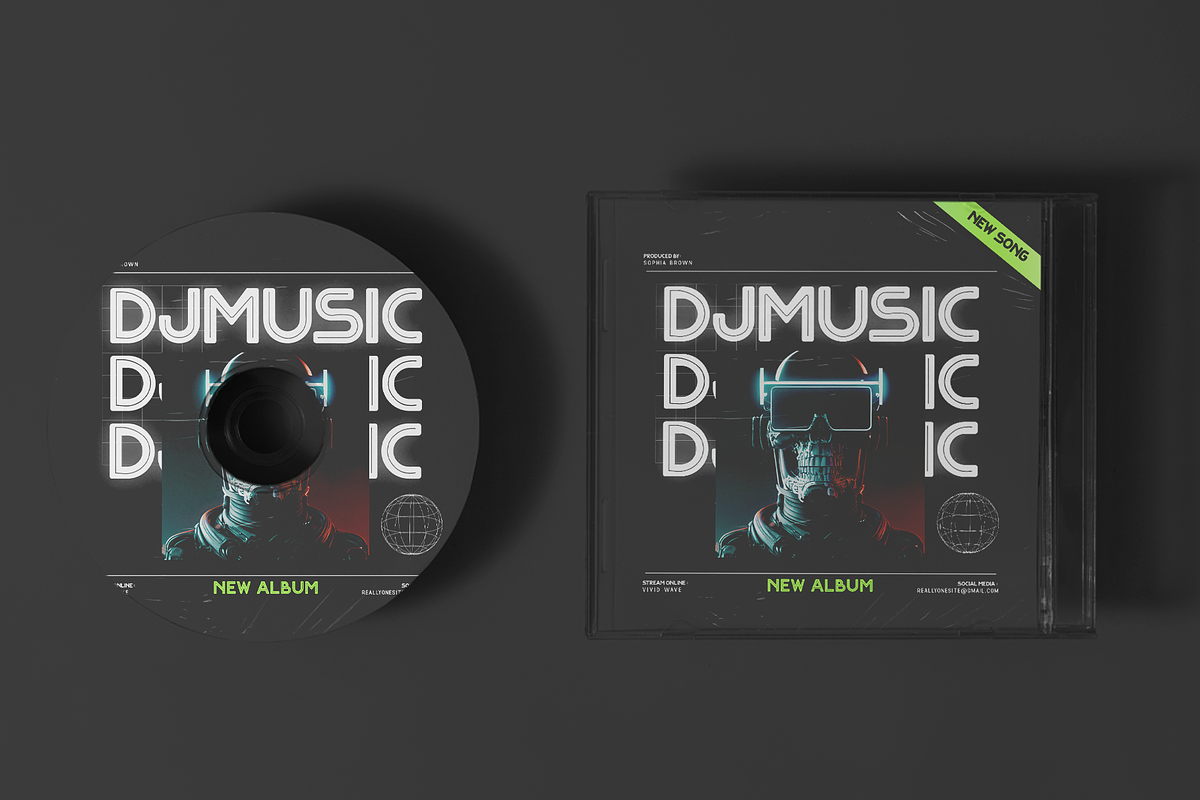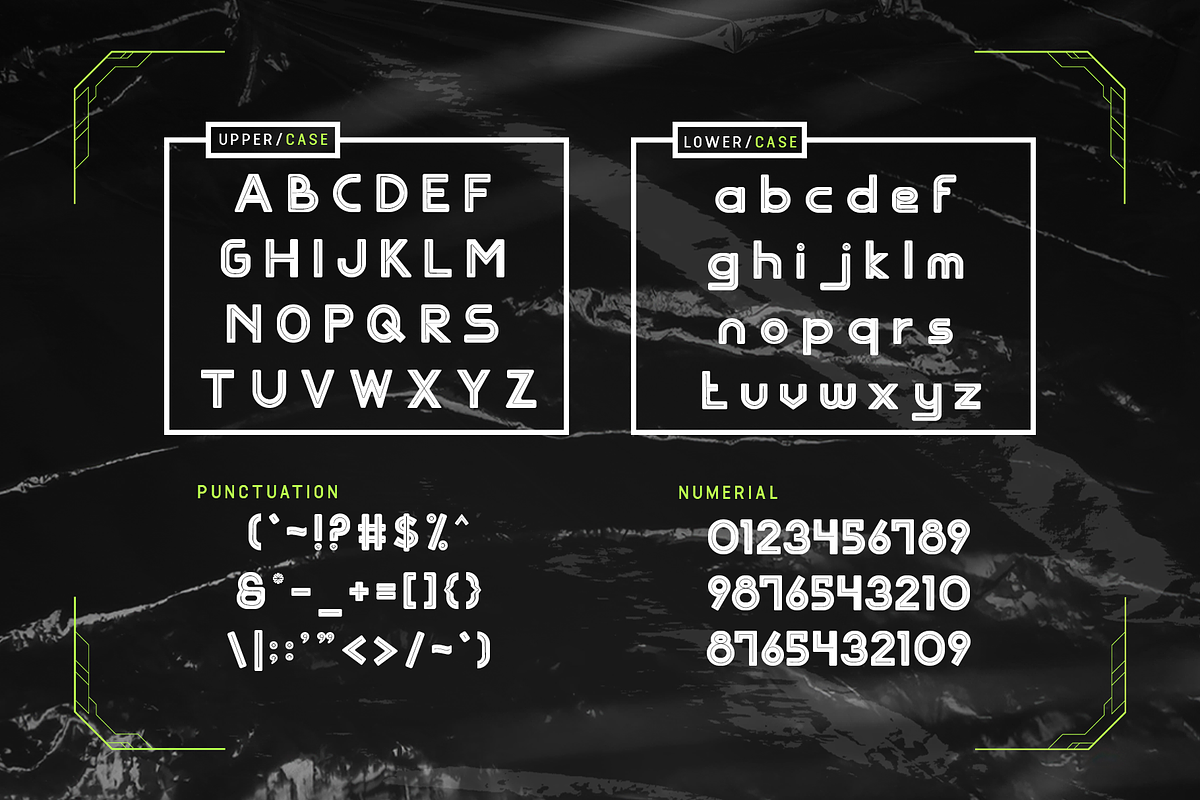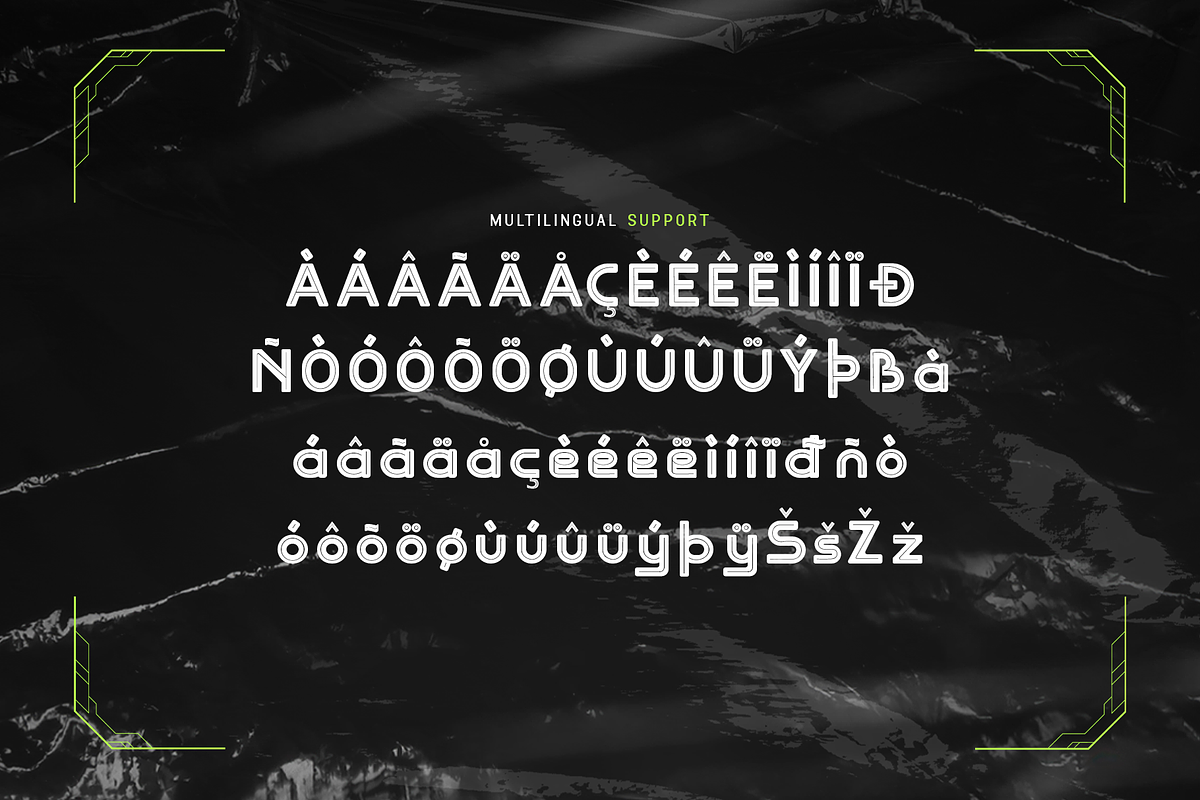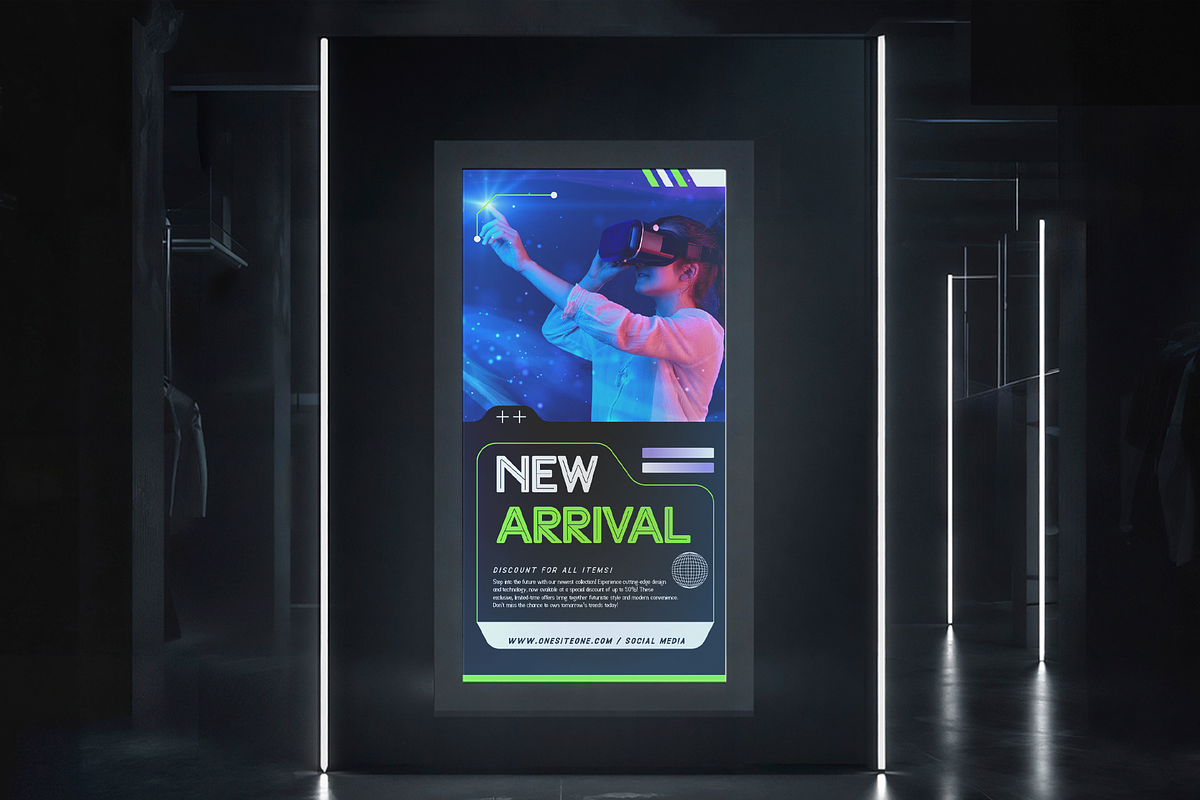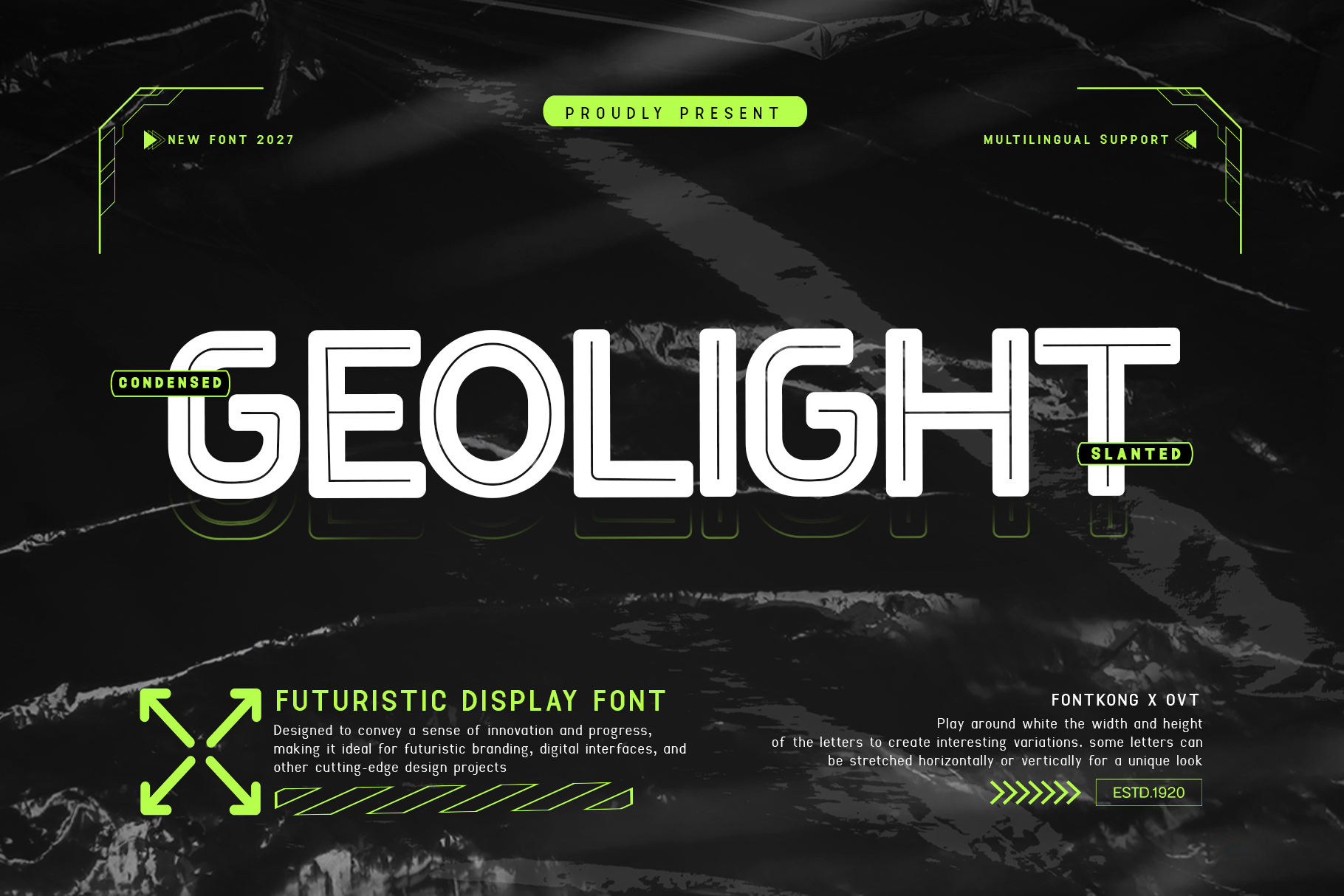
Geolight - Futuristic Display Font
Geolight is a futuristic display font designed for bold and modern projects. Its sleek lines and geometric style make it perfect for technology branding, sci-fi themes, user interfaces, and creative visuals. With its contemporary edge, Geolight brings a cutting-edge vibe to logos, advertisements, and futuristic concepts.